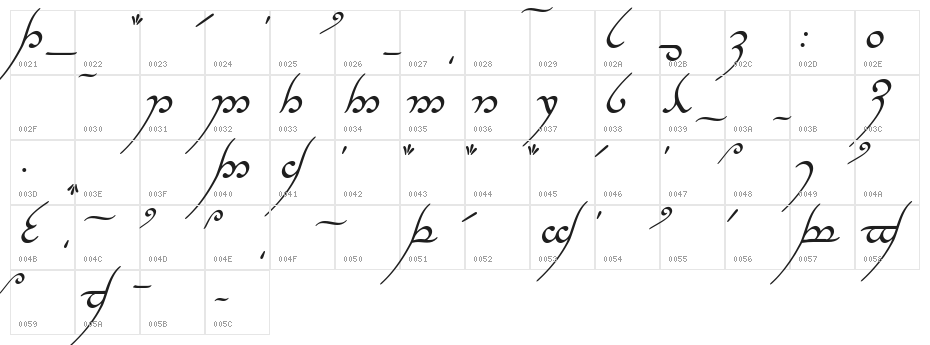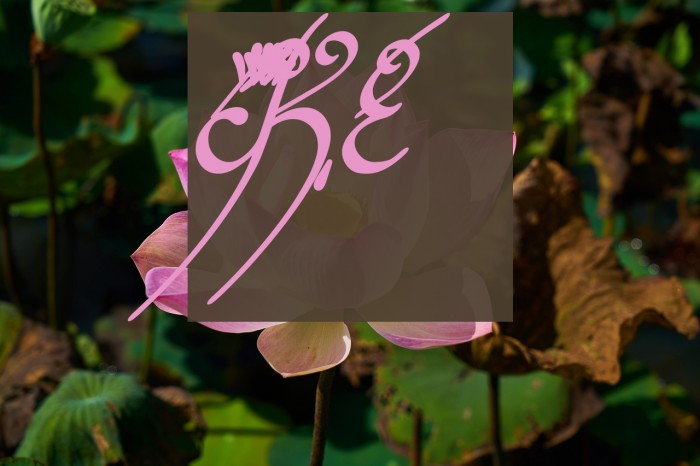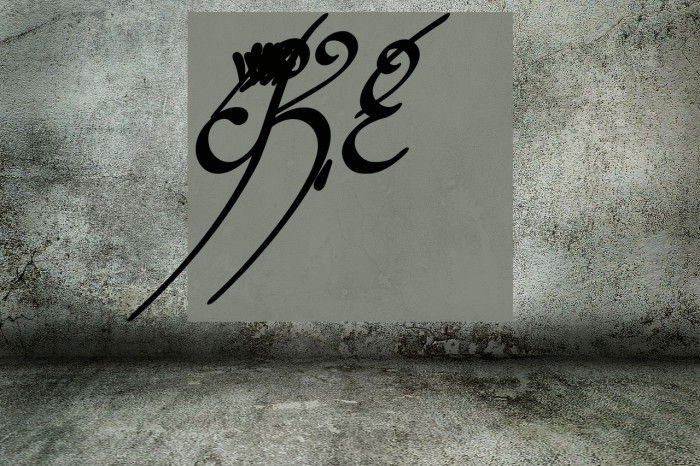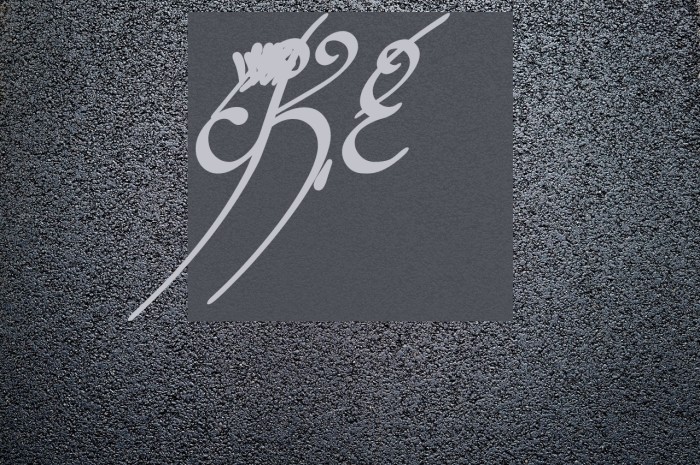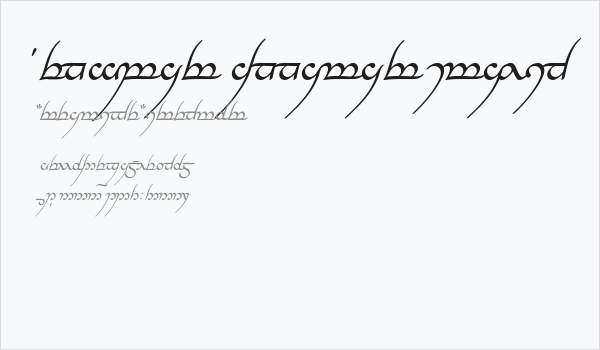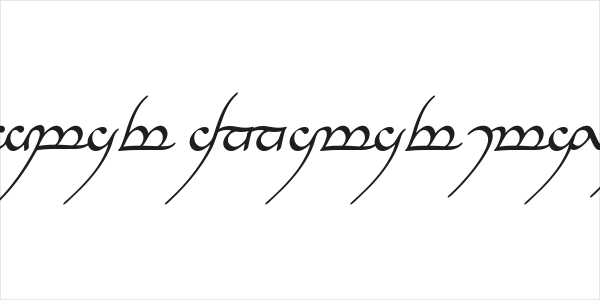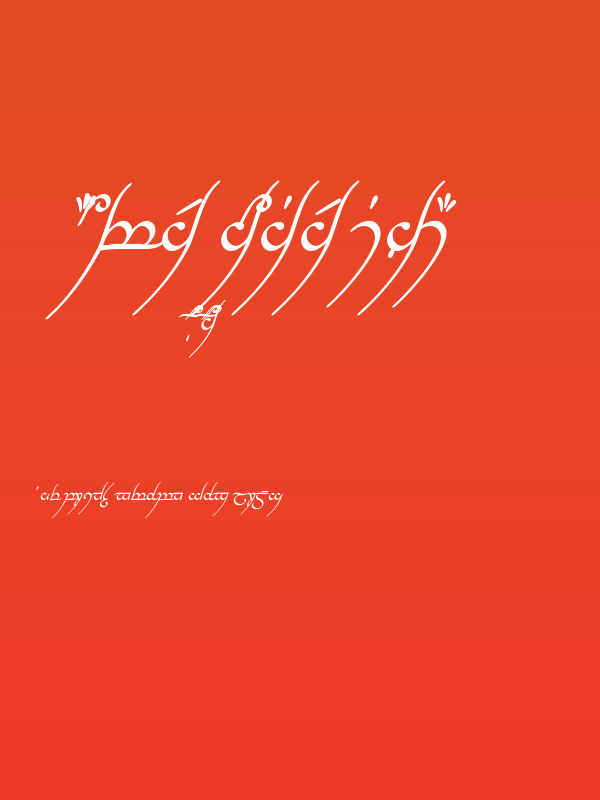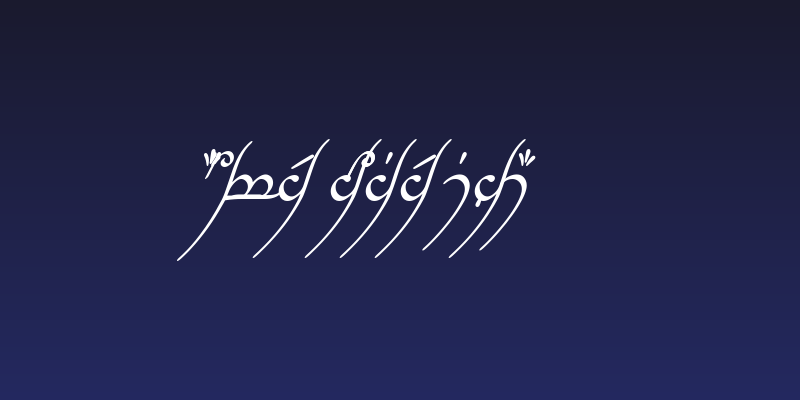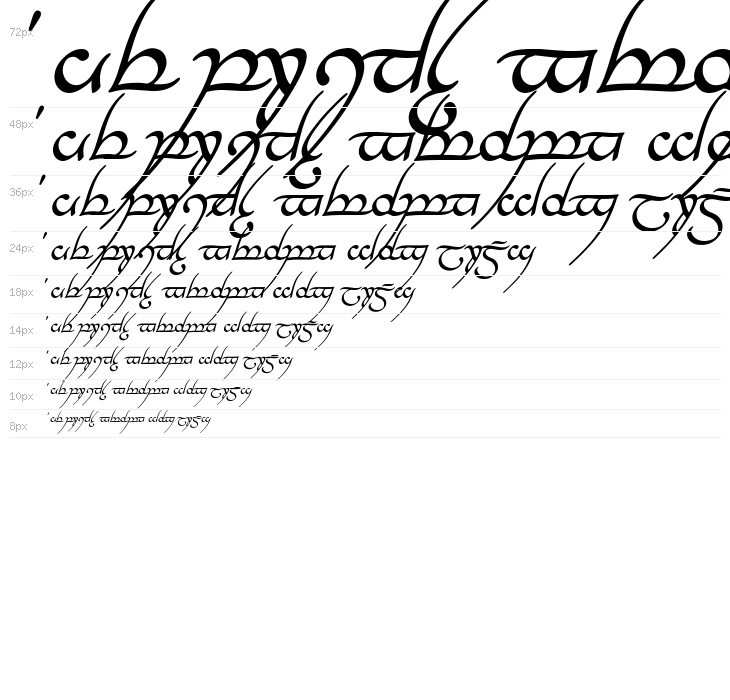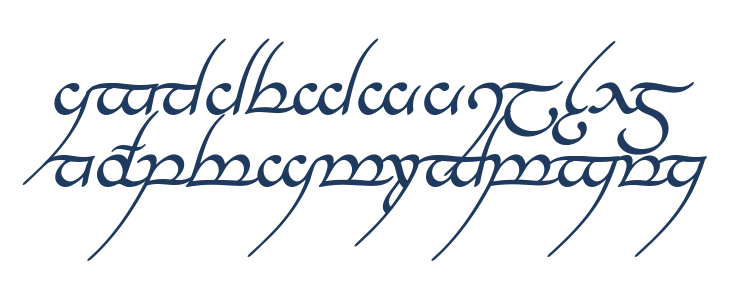
Tengwar Annatar Italic Font
Tengwar Annatar Italic Description
This font is a beautifully crafted script that draws inspiration from the elegant and flowing lines of calligraphy. Each character is intricately designed with sweeping curves and delicate flourishes, creating a sense of movement and grace. The font features a unique blend of traditional and fantasy elements, making it ideal for projects that require a touch of sophistication and mystique. Its italic style enhances the fluidity and artistic appeal, while the consistent stroke width ensures readability. The overall aesthetic is both timeless and enchanting, perfect for capturing the imagination.